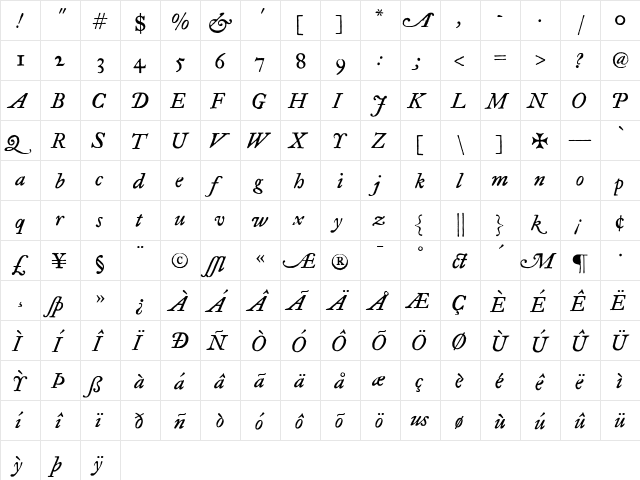
Historical Medium Italic Font Preview
Historical Medium Italic
Historical Medium Italic Font Details
Design Context for Historical Typeface
Historical takes a measured approach to typography — its balanced proportions and neutral character make it a reliable workhorse for both digital and print work. The dynamic lean of this cut emphasises speed and emphasis in any layout.